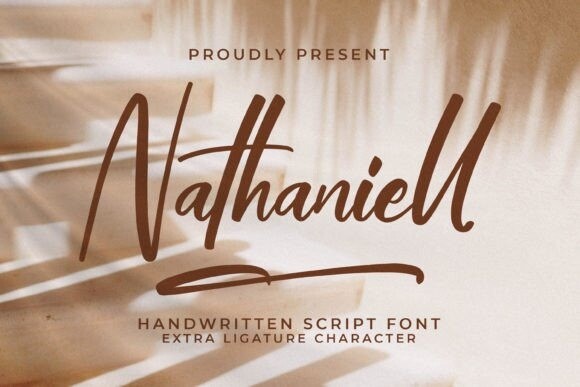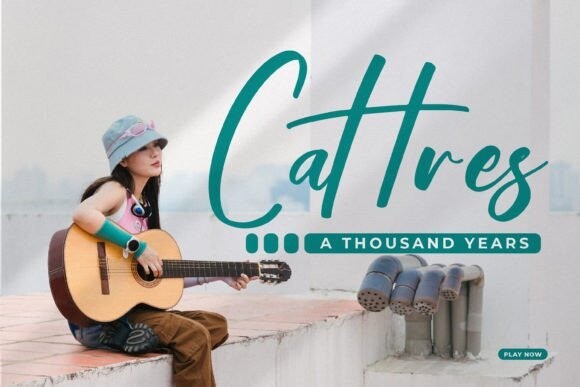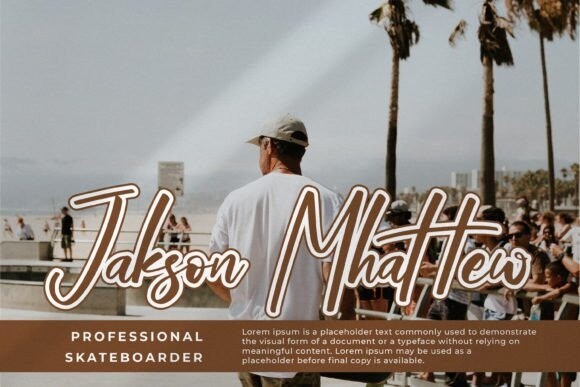
Nathaniell Font
Nathaniell Font is an elegant and bold handwritten font that features sweet and delicate swashes. This original look will appeal to a wide range of crafty ideas, from letterheads and titles, to stationery.